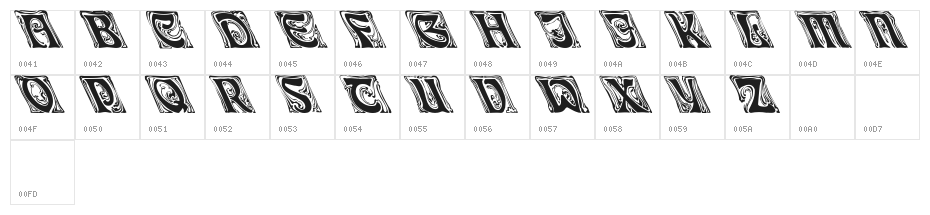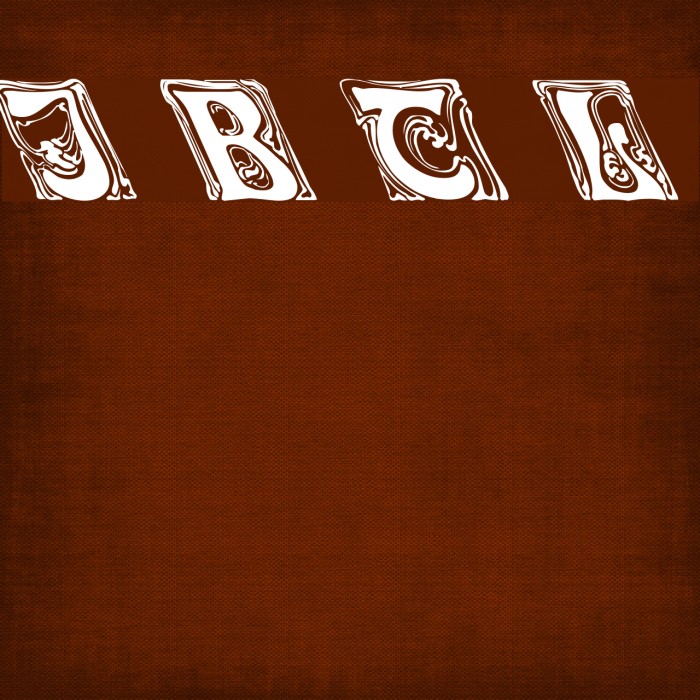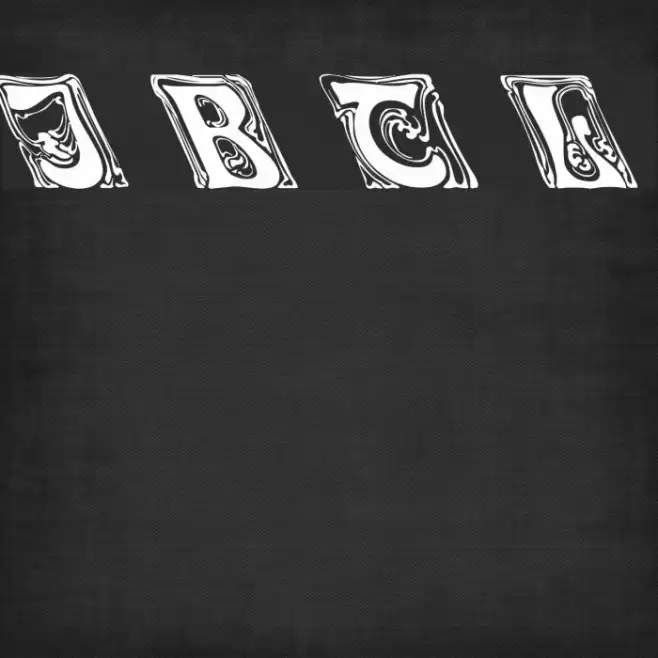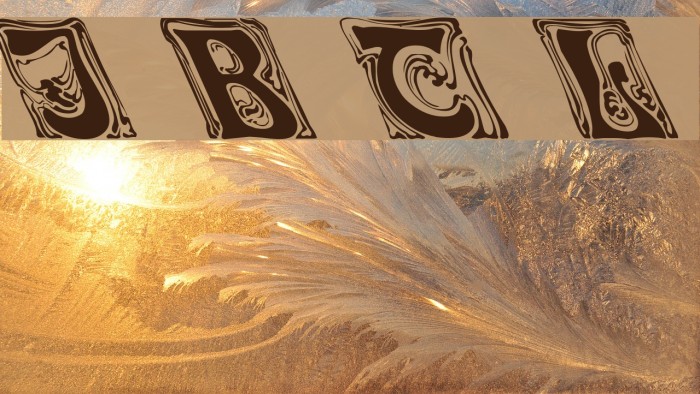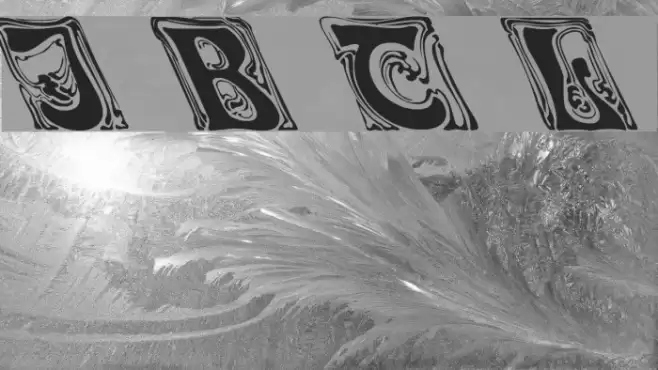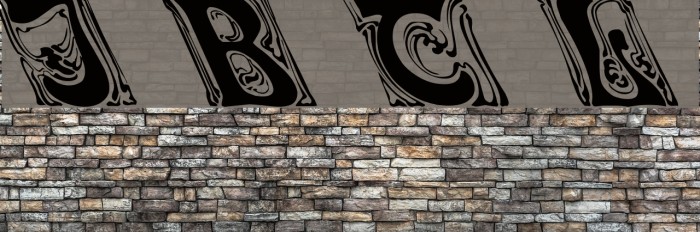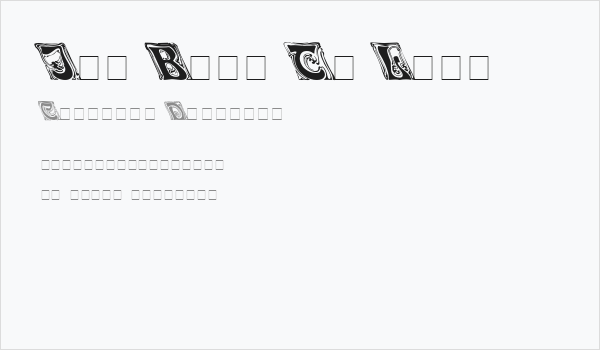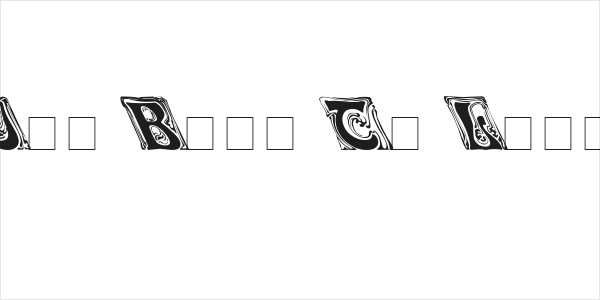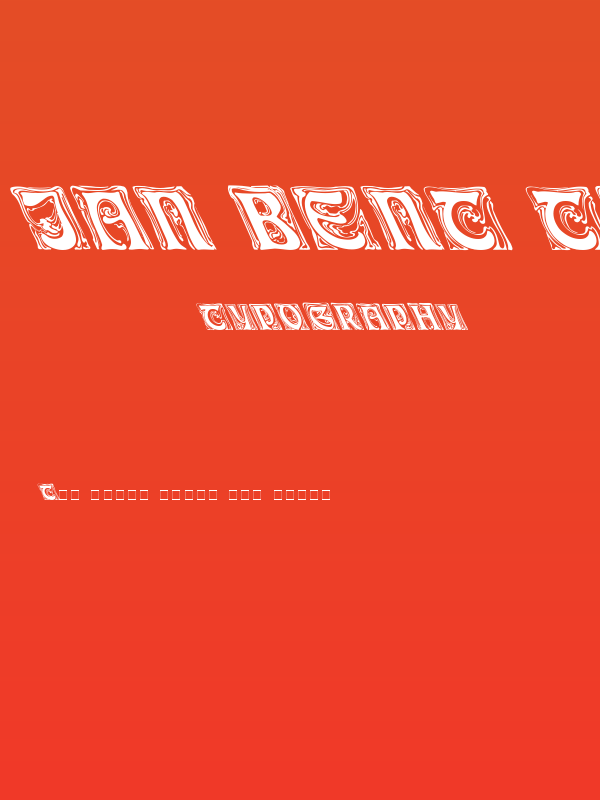
Ian Bent To Left Font
Ian Bent To Left Description
This font features a bold and decorative style with a swirling, psychedelic pattern that gives each letter a unique and artistic appearance. The uppercase letters are heavily stylized, with intricate designs that create a sense of movement and fluidity. The font's boldness and intricate design make it stand out, making it suitable for eye-catching headlines or artistic projects. The swirling patterns within each character add a dynamic and energetic feel, reminiscent of vintage psychedelic art.